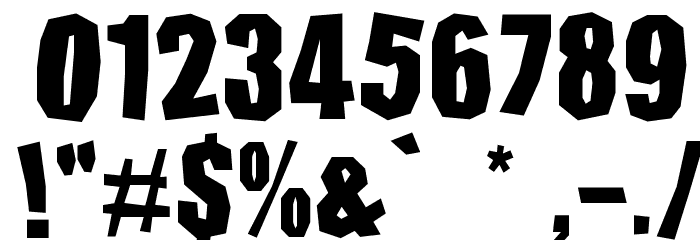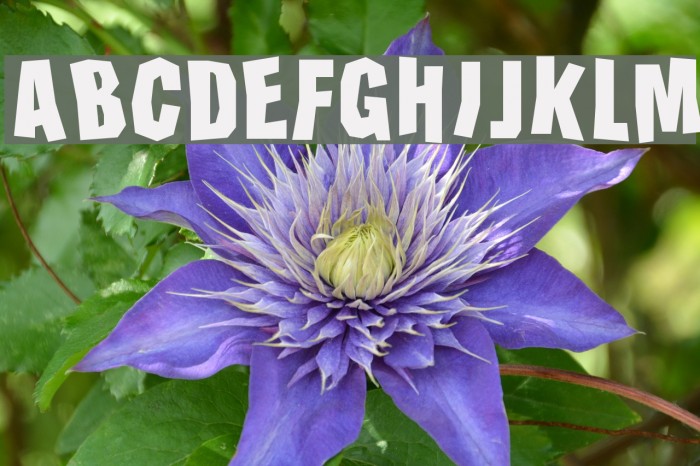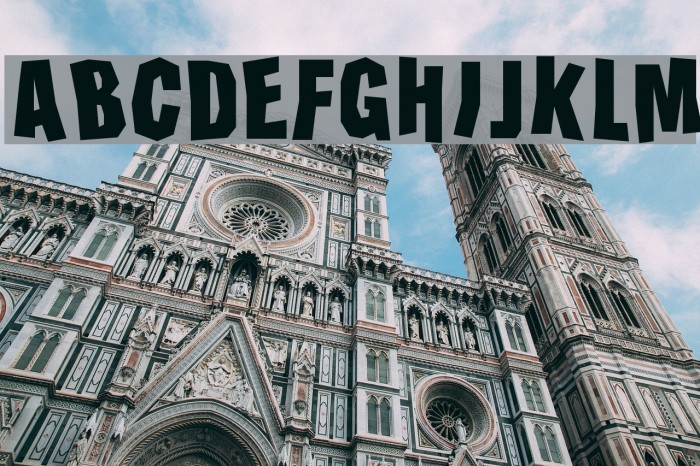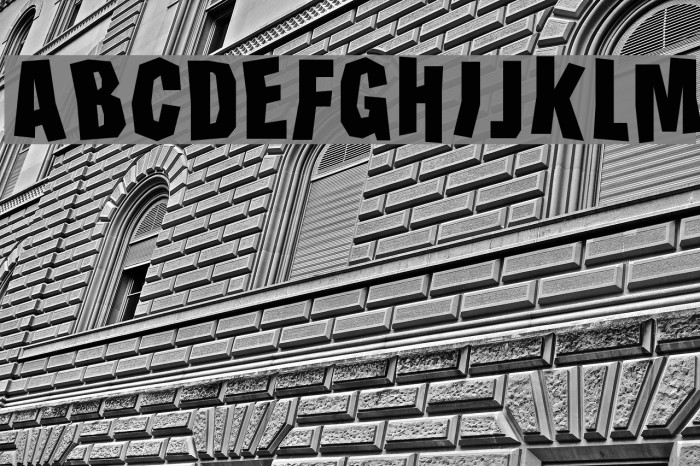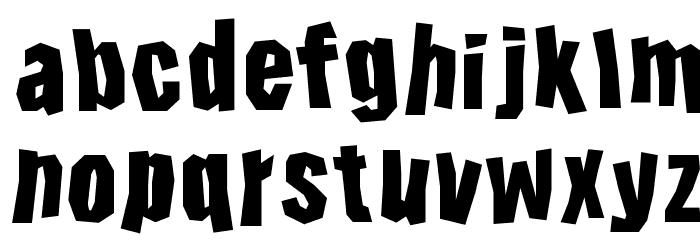
Horseradish Font
Horseradish Description
This font features a bold and dynamic style with irregular, jagged edges that give it a hand-crafted, energetic appearance. The uppercase letters are particularly striking, with a strong presence and a slightly condensed form. The lowercase letters maintain the same boldness, creating a cohesive look across the alphabet. Numbers and special characters follow the same design principles, ensuring consistency throughout. The font's unique character shapes and bold weight make it ideal for attention-grabbing designs.
A bold, jagged, and dynamic font with a hand-crafted feel from Decorative fonts.
- Proposed Projects: Ideal for posters, album covers, branding projects, and any design that requires a bold, eye-catching typeface.